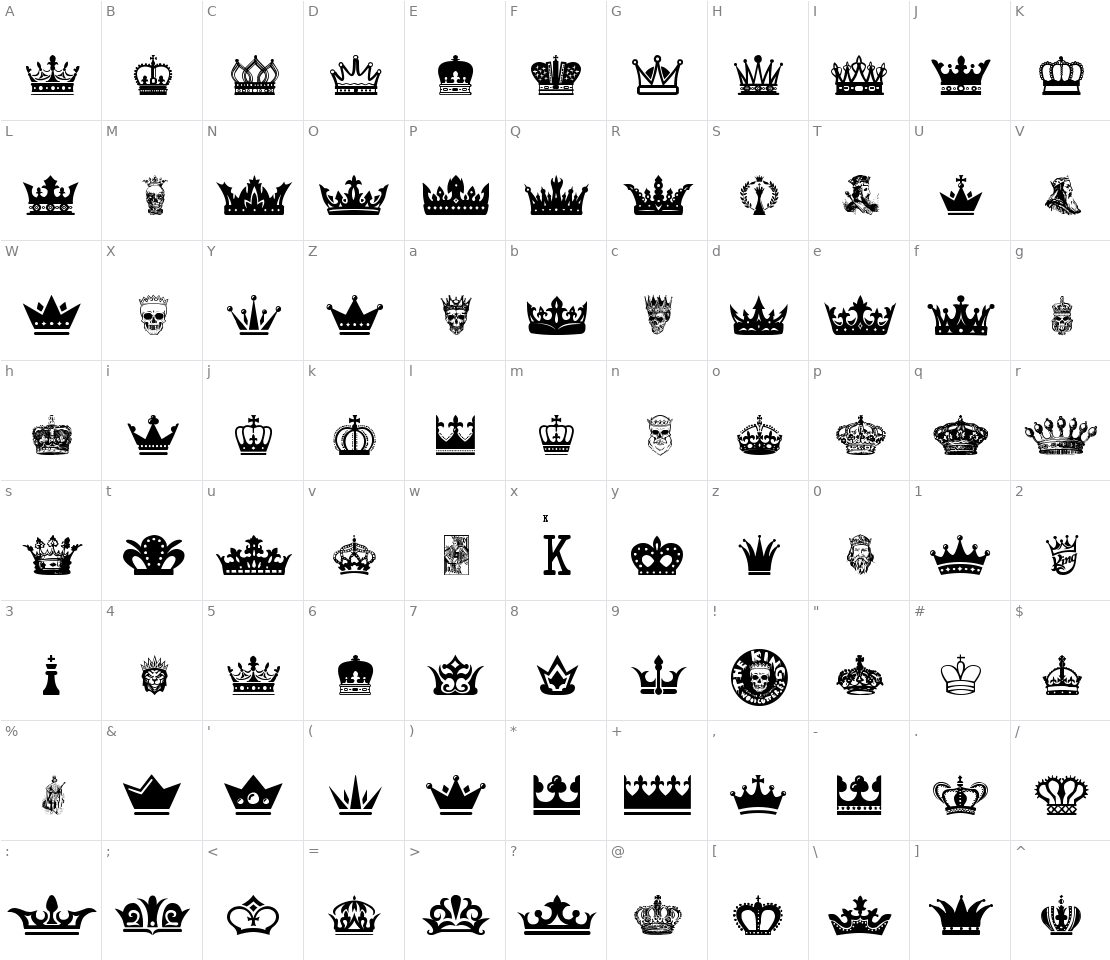
The King
The King is a dingbat font from Woodcutter made up of crown and royalty-themed symbols rather than standard letterforms. The collection includes various heraldic and medieval crown designs, useful as decorative icons for invitations, logos, packaging, or anywhere you need a quick regal accent without commissioning custom illustrations.